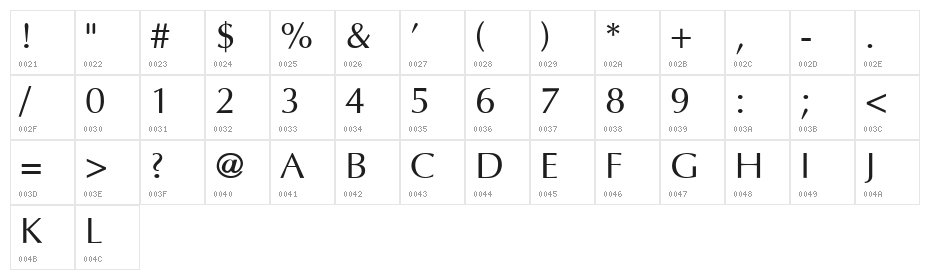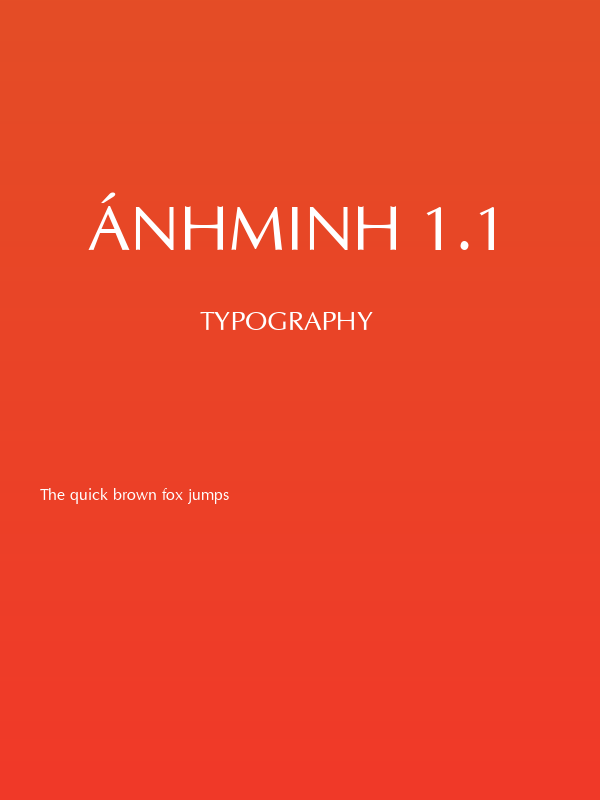
ÁnhMinh 1.1 Font
ÁnhMinh 1.1 Description
This font exhibits a clean and modern sans-serif style, characterized by its simplicity and elegance. The uppercase letters are well-proportioned with a slight geometric influence, giving them a contemporary feel. The lowercase letters maintain a consistent height, contributing to a harmonious appearance. The numerals are clear and legible, making them suitable for various applications. Special characters are designed with the same attention to detail, ensuring uniformity across the character set. The overall design is versatile, making it suitable for both digital and print media.
| Proposed Projects | Ideal for branding, web design, editorial layouts, and corporate materials. |